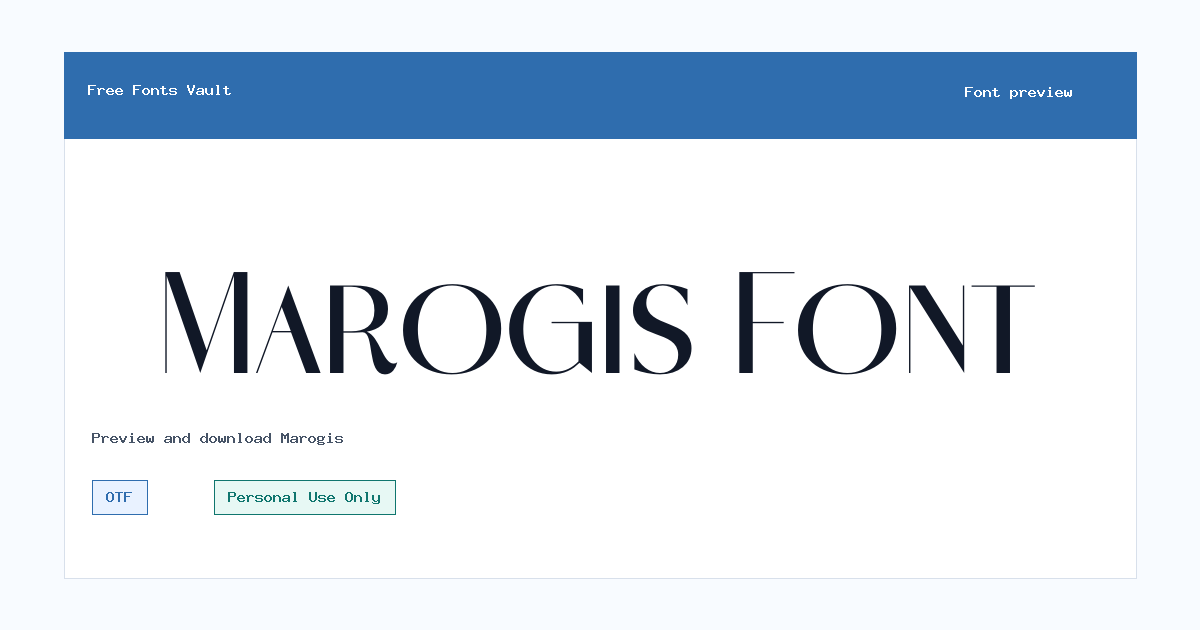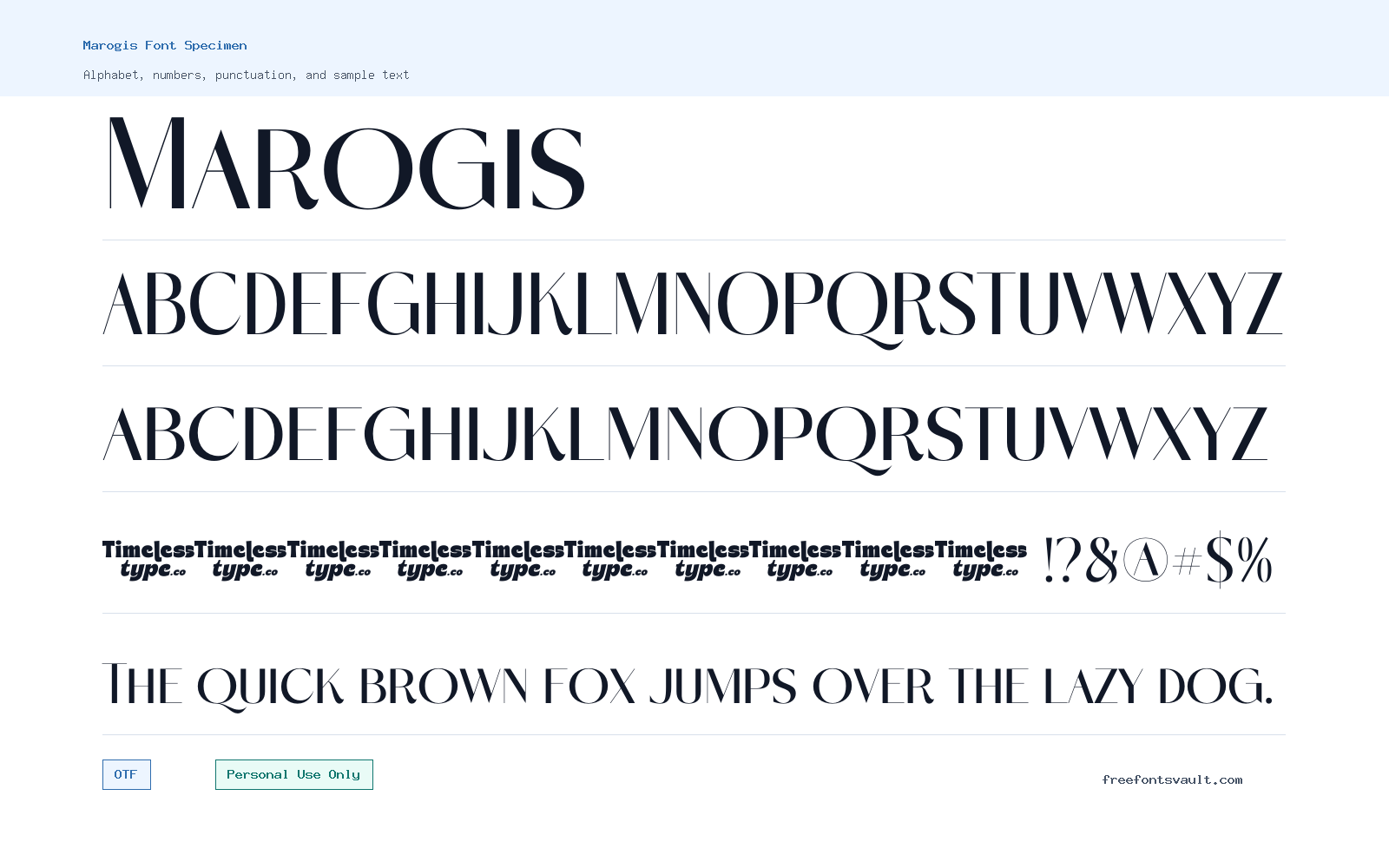
Marogis
- Designer Heru Utama Putra
- Foundry TimelessType
Marogis font.
About Marogis Font
Marogis keeps things simple with a single Regular style, making it easy to test in the preview box before downloading. The font file identifies the family as Marogis and the style as Regular, with a standard 400 weight. Its sans serif category makes it useful for visitors who want a clean, direct typeface for short pieces of text rather than an ornate script or decorative display face.
Because only one style is included, Marogis is easiest to use in focused layouts: headings, social graphics, short labels, poster text, simple branding mockups, and personal design experiments. Try a few uppercase words, a mixed-case title, and a number-heavy line in the preview to see how the spacing and proportions behave. If you plan to use it for longer paragraphs, test readability at smaller sizes first, since single-style fonts may need careful pairing with a more neutral body font.
- Includes complete basic Latin letters and common punctuation in the installed font file.
- Sans serif style suited to short, clean text settings.
- Personal posters, quote graphics, and social media images.
- Short headings, title cards, labels, and simple mockups.
- Testing clean sans serif lettering in preview-based layouts.
- Pairing with a quieter body font for personal projects.
Marogis is credited to Heru Utama Putra, with TimelessType named as the foundry/source. The font file also lists TimelessType.co and a TimelessType copyright notice.
Start by previewing the exact words you plan to use. Check uppercase titles, lowercase phrases, numbers, and punctuation, especially if the design includes prices, dates, or short calls to action. For cleaner layouts, give the letters enough space and pair Marogis with a simple body typeface instead of another strong display face.
Who designed Marogis?
Marogis is credited to Heru Utama Putra. TimelessType is listed as the foundry/source.
What is Marogis best used for?
It is best for short personal-use text such as headings, posters, social graphics, labels, and design mockups. Test it carefully before using it for long reading text.
Does Marogis include more than one weight?
Only the Regular style is listed for this font page, with a standard 400 weight.